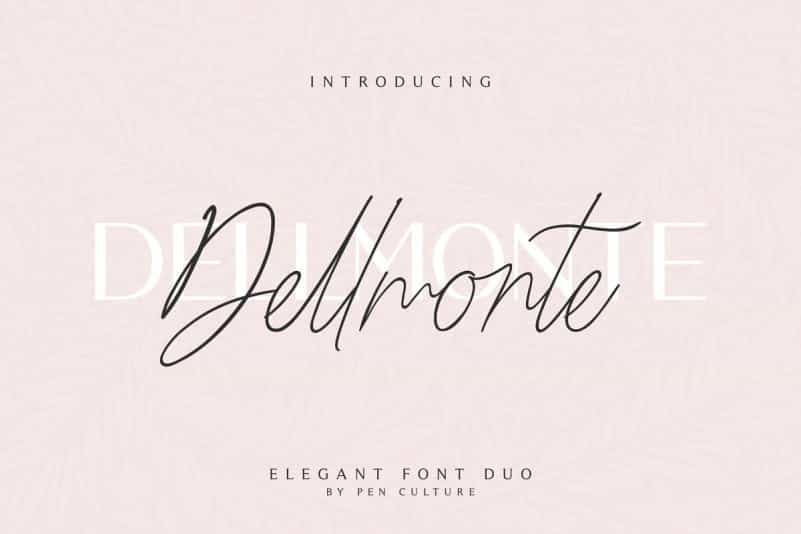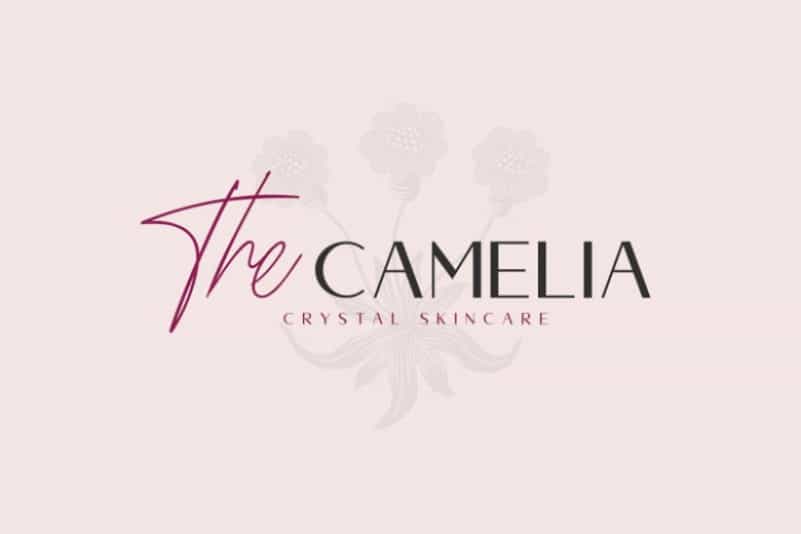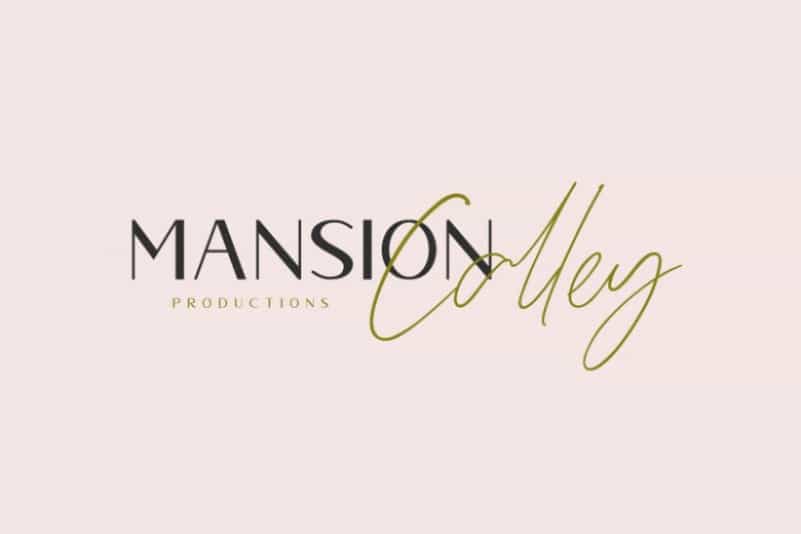
Introducing Dellmonte Font! Dellmonte has two font variants: Dellmonte sans and Dellmonte script. What is more, the OpenType features of the fonts are all caps, multilingual support (including currency symbols), 94 ligatures, standard numbers and many others. This font is just right for any need and very user-friendly.